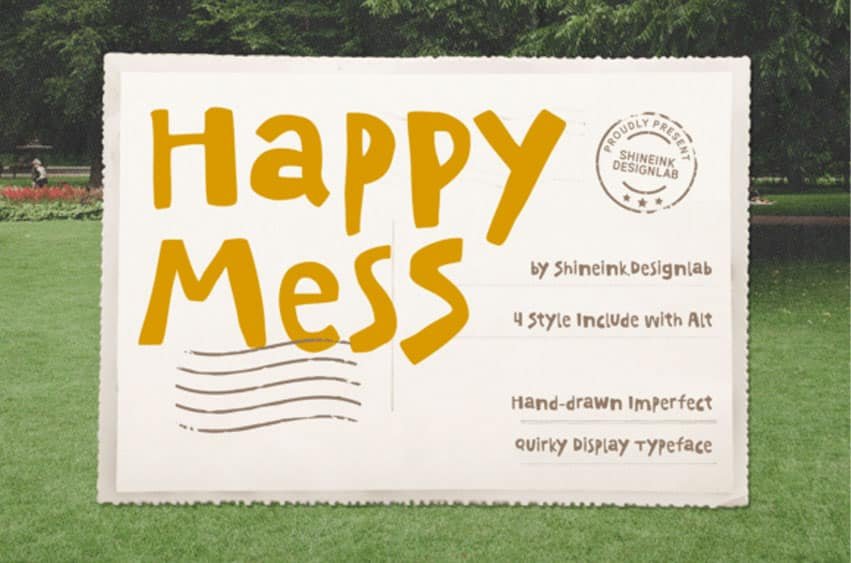
Happy Mess Font Embrace creative imperfection, joyful spontaneity, and playful charm with Happy Mess! Meticulously crafted with thick marker-style strokes, cheerful asymmetrical shapes, and a delightfully casual baseline, this hand-drawn imperfect display font captures the genuine magic of handcrafted lettering. Plus, with 4 included styles and alternate characters, you’ll have all the versatility needed to make every composition feel unique.
Whether you’re creating children’s book layouts, greeting cards, sticker packs, cozy quote prints, teacher printables, food packaging, or custom vinyl craft SVG projects, Happy Mess turns everyday text into a fun, approachable visual treat!